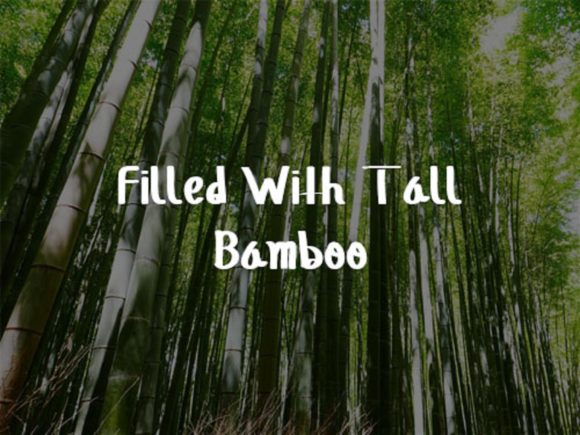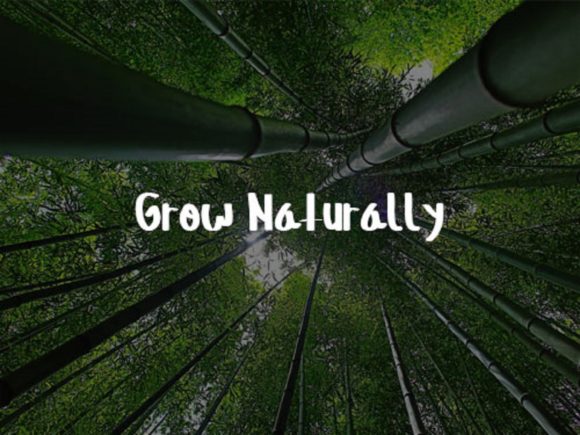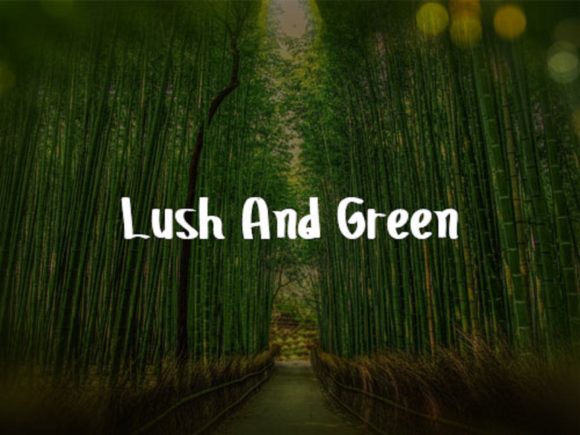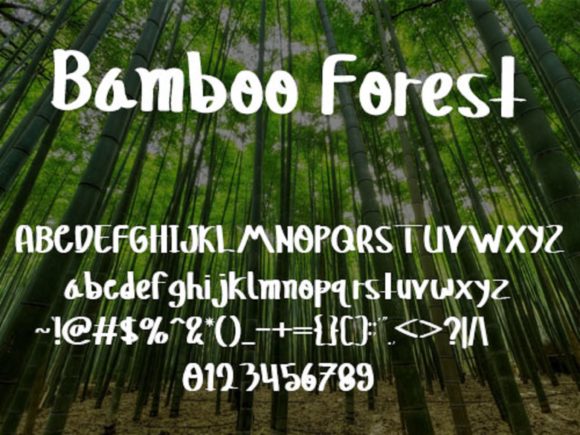
Bamboo Forest Font: A Sweet and Friendly Handwritten Font for Your Designs
Are you tired of using the same old fonts for your designs? Do you want to add a touch of uniqueness and personality to your projects? Look no further than the Bamboo Forest Font! This sweet and friendly handwritten font is perfect for designers and crafters who want to create stunning and eye-catching designs.
What is Bamboo Forest Font?
Bamboo Forest Font is a beautiful, handwritten font that is inspired by the natural world. Its unique and organic style makes it incredibly versatile and suitable for a wide range of designs. Whether you’re creating a logo, a poster, a social media graphic, or a craft project, this font is sure to add a touch of magic to your work.
Key Features of Bamboo Forest Font
- Handwritten style: Bamboo Forest Font has a sweet and friendly handwritten style that is perfect for creating personal and approachable designs.
- Natural and unique: The font’s natural and unique style makes it stand out from more traditional fonts and adds a touch of personality to your designs.
- Versatile: Bamboo Forest Font is incredibly versatile and can be used for a wide range of designs, from logos and posters to social media graphics and craft projects.
- Easy to read: Despite its unique style, Bamboo Forest Font is easy to read and understand, making it perfect for designs that require a clear and concise message.
Uses for Bamboo Forest Font
The possibilities are endless when it comes to using Bamboo Forest Font! Here are just a few ideas to get you started:
- Logos and branding: Use Bamboo Forest Font to create a unique and memorable logo for your business or brand.
- Posters and flyers: Add a touch of personality to your posters and flyers with this beautiful handwritten font.
- Social media graphics: Use Bamboo Forest Font to create eye-catching social media graphics that will help your posts stand out.
- Craft projects: Bamboo Forest Font is perfect for craft projects, such as making cards, gift tags, and other handmade items.
- Wedding and event designs: Use this font to create beautiful wedding and event designs, such as invitations, programs, and signage.
Tips for Using Bamboo Forest Font
Here are a few tips for getting the most out of Bamboo Forest Font:
- Experiment with different sizes and colors: Don’t be afraid to try out different sizes and colors of Bamboo Forest Font to see what works best for your design.
- Pair it with other fonts: Bamboo Forest Font looks great when paired with other fonts, such as sans-serif fonts or script fonts.
- Use it for headings and titles: Bamboo Forest Font is perfect for headings and titles, as it adds a touch of personality and whimsy to your designs.
| Font Name | Bamboo Forest Font |
| Author | scriptstrategy |
In conclusion, Bamboo Forest Font is a sweet and friendly handwritten font that is perfect for designers and crafters who want to add a touch of uniqueness and personality to their designs. Its natural and unique style makes it incredibly versatile and suitable for a wide range of designs. With its ease of use and endless possibilities, Bamboo Forest Font is a must-have font for anyone looking to take their designs to the next level.